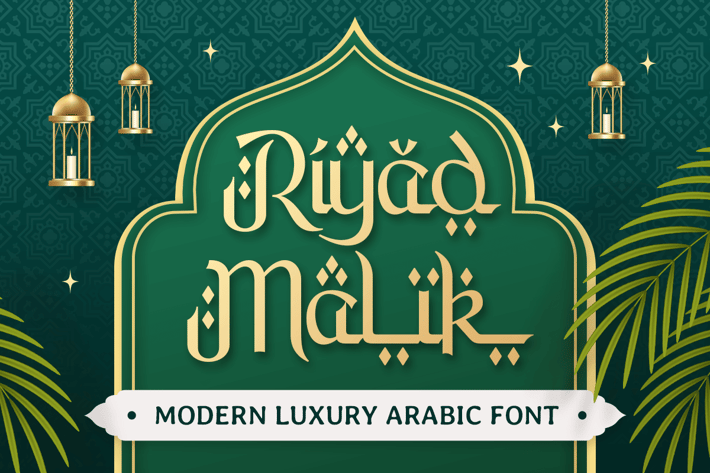
Riyad - Modern Luxury Arabic Font
Timeless Elegance in Every Stroke
Riyad is a modern luxury Arabic font that beautifully marries tradition with contemporary design. Its refined curves and intricate details evoke a sense of opulence, perfect for high-end projects that demand sophistication.
Perfect for Cultural and Luxury Designs
Whether for logos, wedding invitations, or upscale branding, Riyad’s luxurious style adds a touch of class. Its blend of Arabic tradition and modern aesthetics makes it ideal for designs that aim to captivate and inspire.
Crafted for Creative Excellence
Riyad empowers designers to create with confidence. Its harmonious balance of elegance and modernity ensures your work leaves a lasting impression while staying true to its cultural essence.
Riyad Modern Luxury Arabic Font Features:
Alternates Characters Ready
Punctuation, Number, and Symbol
* Opentype Features